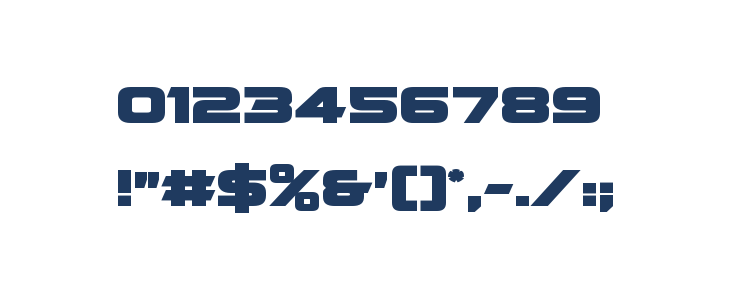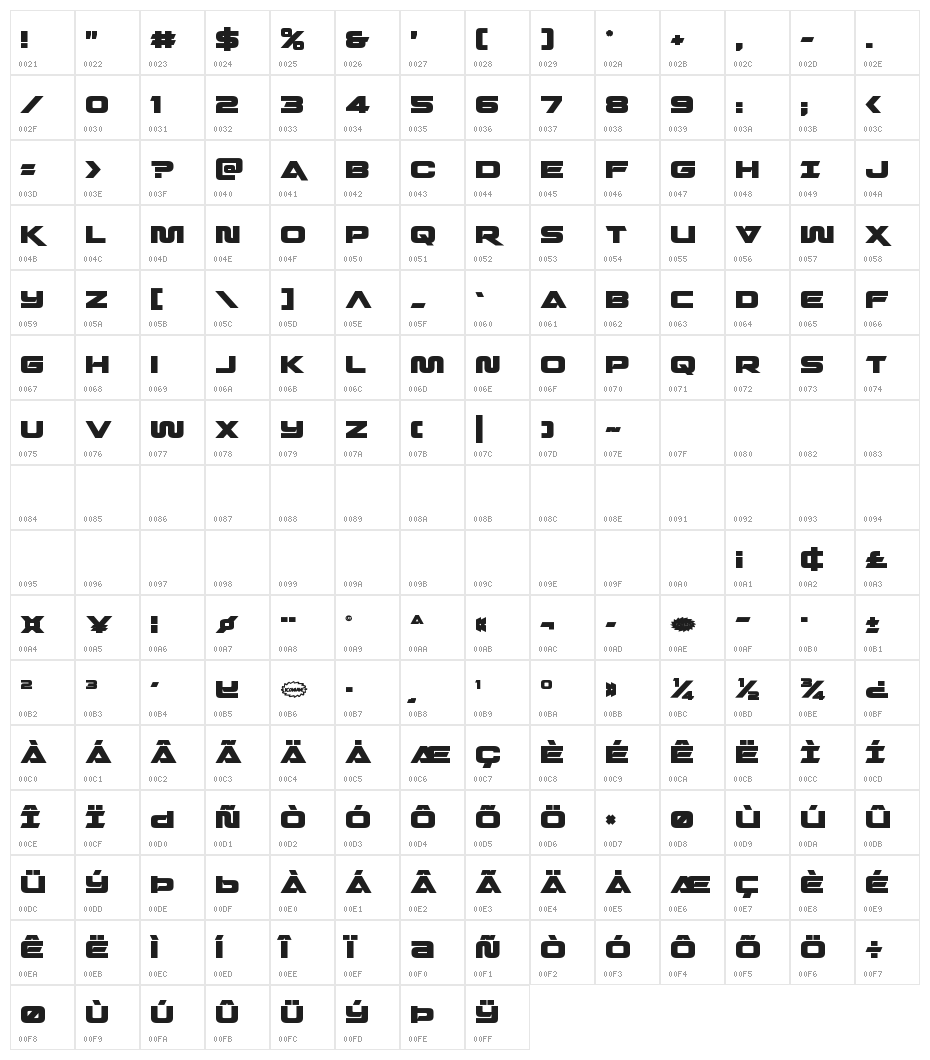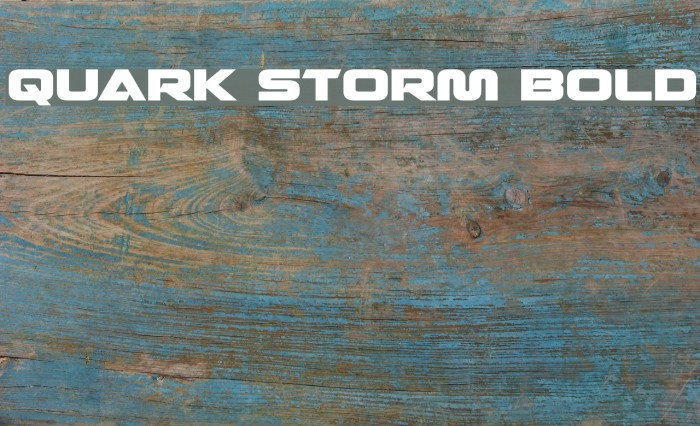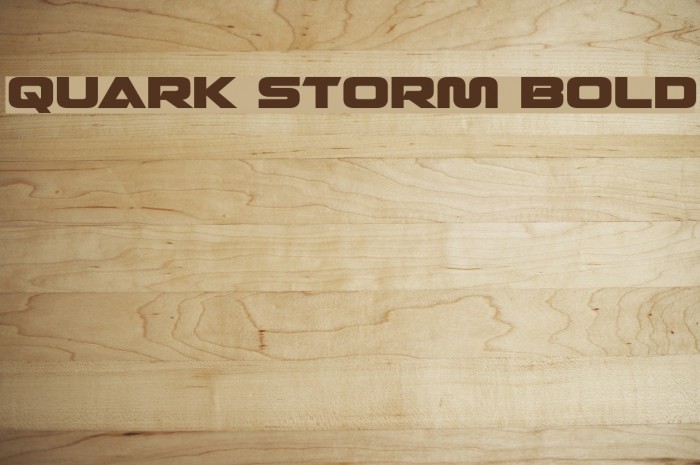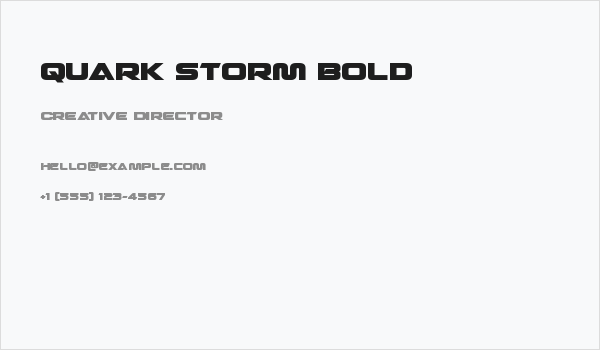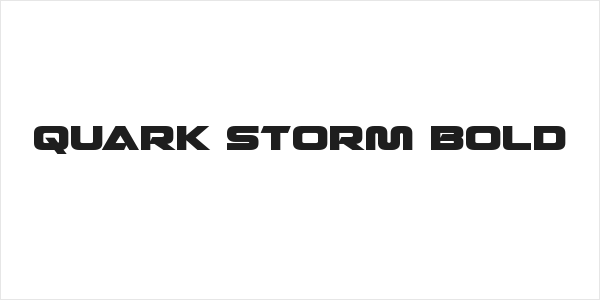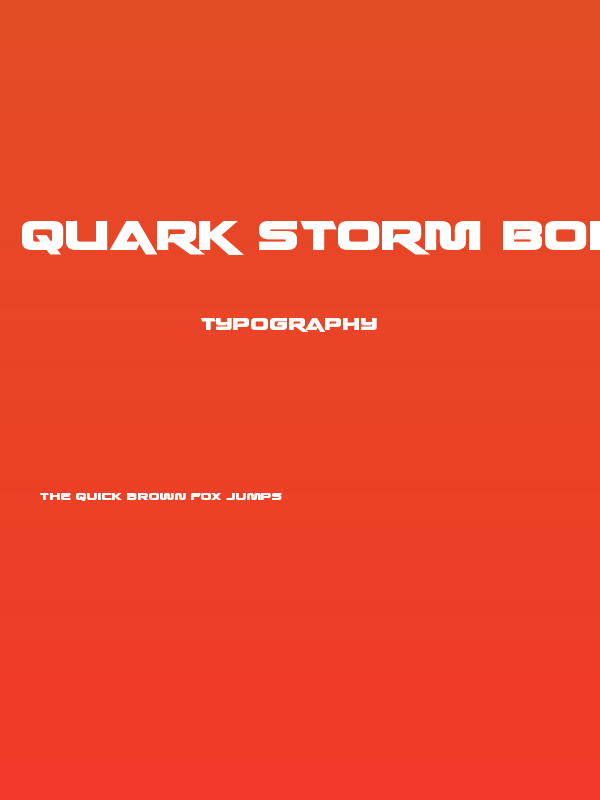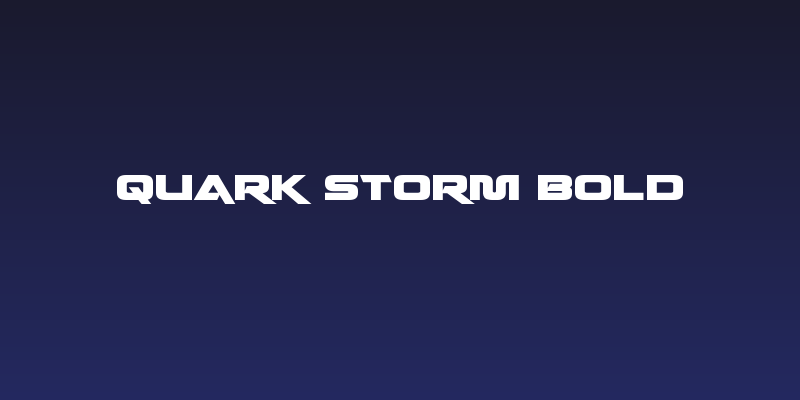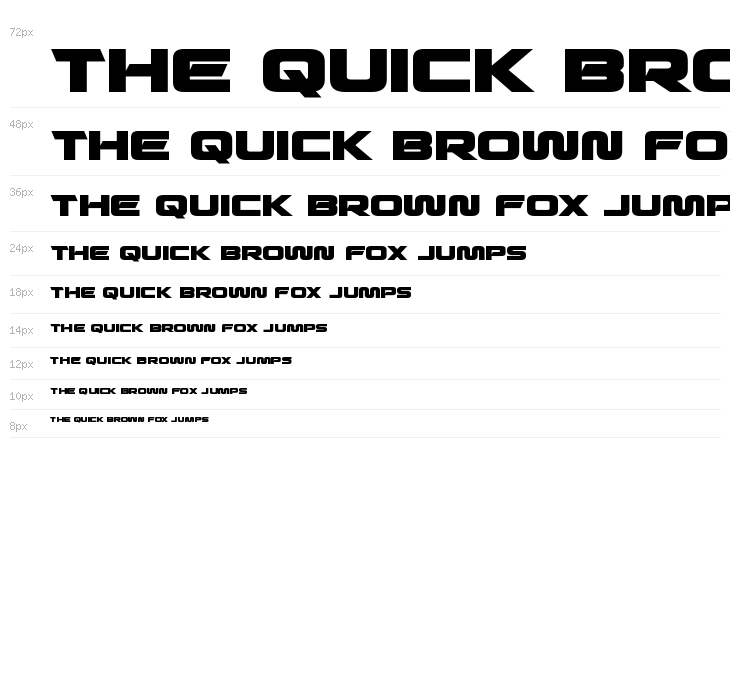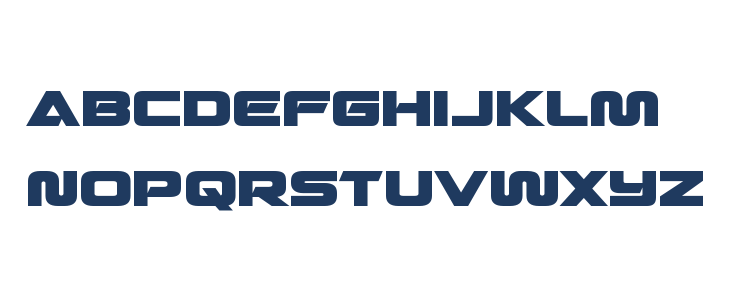
Quark Storm Bold Font
Quark Storm Bold Description
This font features a bold, futuristic design with sharp angles and geometric shapes. The uppercase letters are particularly striking, with a strong presence and unique cuts that give them a dynamic appearance. The lowercase letters maintain the same boldness, ensuring consistency throughout the typeface. Numbers and special characters are designed to match the bold and angular style, making them suitable for attention-grabbing designs. The overall aesthetic is modern and edgy, perfect for projects that require a strong visual impact.
Proposed ProjectsIdeal for sci-fi themed designs, video game titles, technology branding, and posters.